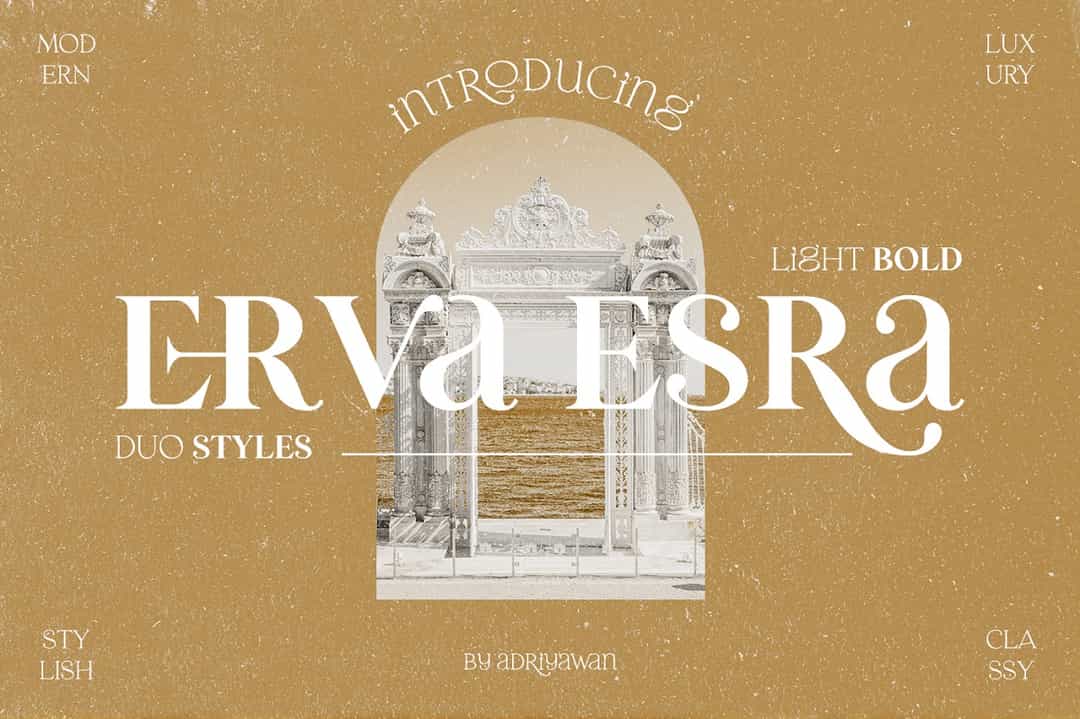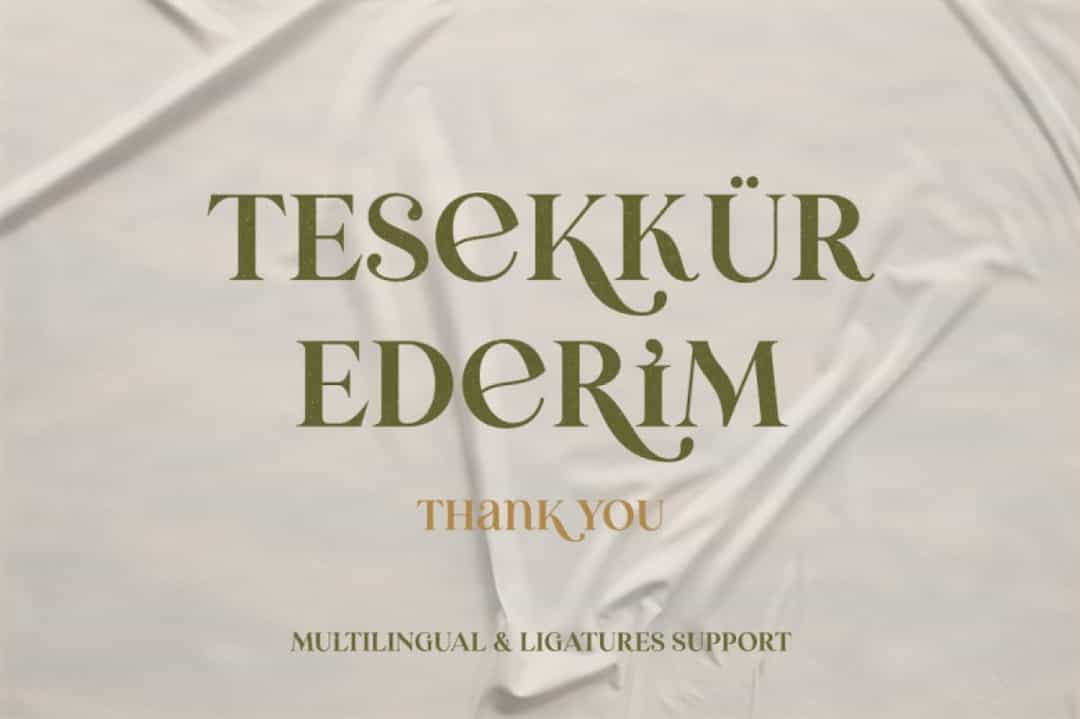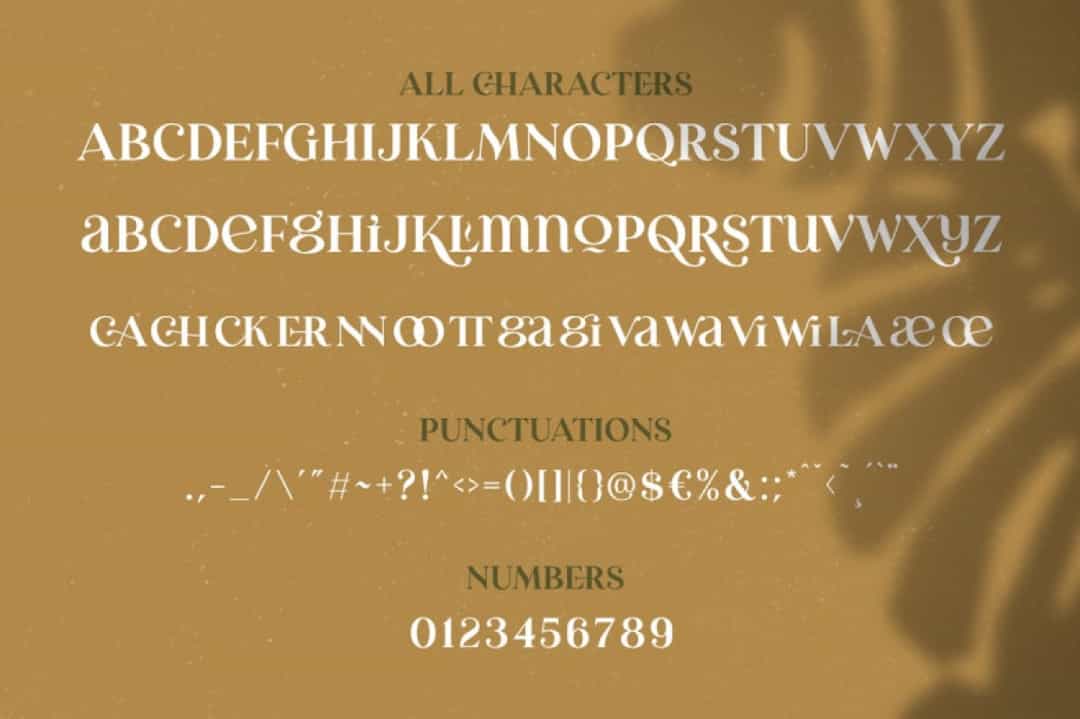
Erva Esra is an eye-catching serif font with modern touches and trendy appeal, boasting two styles – Bold and Light. Perfect for designing brochures, templates videos advertisements branding logos or anything else you may require this font can do it all!